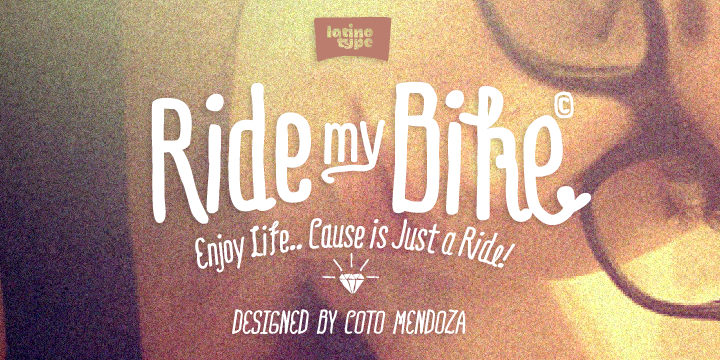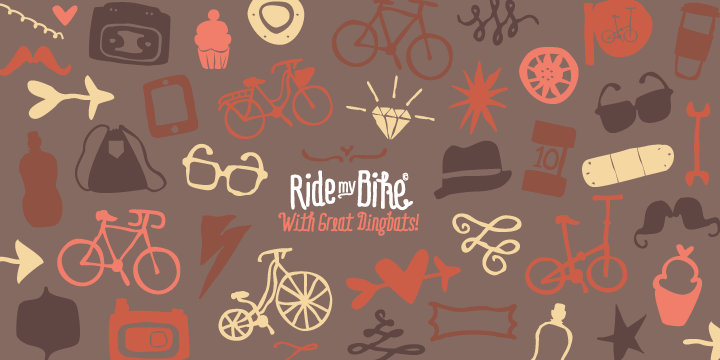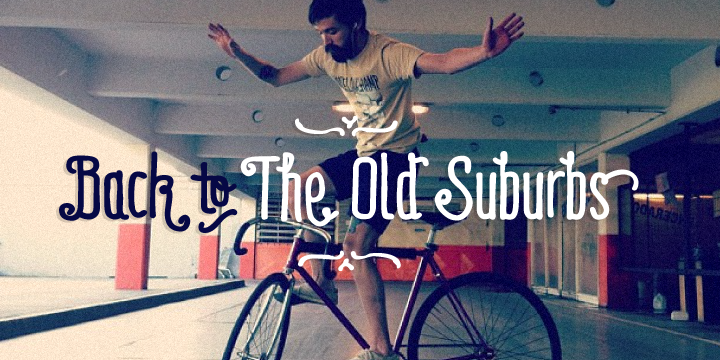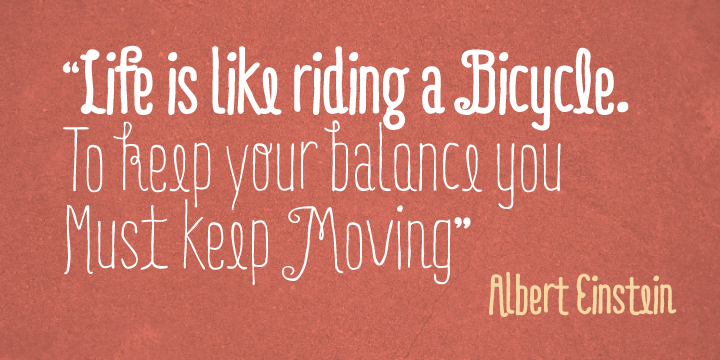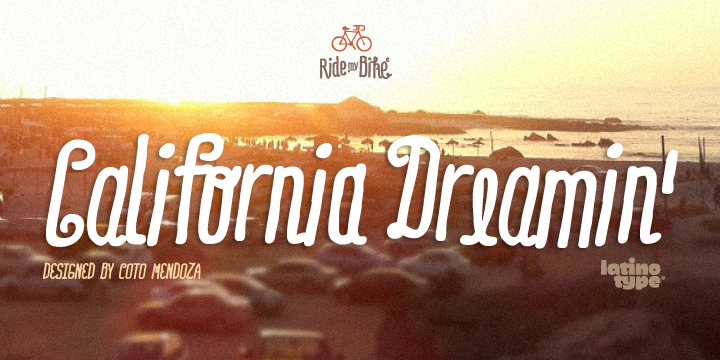
Ride my Bike is a dingbat and hand drawn font family. This typeface has nine styles and was published by Latinotype.
Ride my bike is a fresh handmade typeface, inspired by street style and the new culture that moves pedaling around the city.
Perfect for use in headlines, brands and fashion photography compose alternative, thanks to its leading characters, terminals, alternate characters and ligatures that you can find in Pro version contains more than 600 glyphs.
It also has 91 dingbat very fun to complement and accentuate the design handmade.
Come! get on it, and let’s go to ride my bike